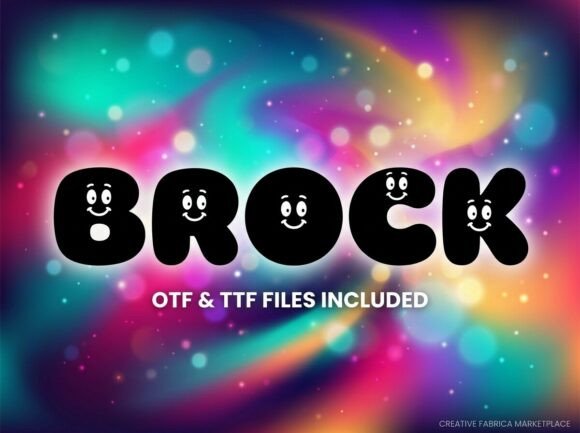
The Brock Font: A Stunning Decorative Display Font to Elevate Your Designs
An Honest Review of Brock Font
- ✨ Unique artistic elements that add a touch of personality to any design
- ✅ Strong visual personality that’s perfect for making a statement
- 💼 Versatile enough for bold headlines, artistic logos, and creative packaging
- 👍 Maintains a professional and polished finish, even in complex designs
⚠️ One thing to note is that the Brock Font is an ALL-CAPS (Uppercase Only) display typeface, which means it doesn’t include lowercase letters. While this might seem limiting, it’s actually a deliberate design choice that makes every letter a work of art. However, it’s essential to consider this when planning your project.
🤔 Another thing to keep in mind is that the font’s uniqueness might not make it suitable for body text or lengthy content. It’s best used for high-impact headlines, logos, and decorative initials.
The Backstory of Brock Font
The Brock Font was designed with the intention of creating a unique, eye-catching display font that would help designers and creatives stand out from the crowd. The designer aimed to craft a font that would be both artistic and professional, making it perfect for bold headlines, logos, and creative packaging.
| Is the Brock Font suitable for body text? | No, the Brock Font is designed for high-impact headlines, logos, and decorative initials. It’s not recommended for body text or lengthy content. |
| Does the Brock Font include lowercase letters? | No, the Brock Font is an ALL-CAPS (Uppercase Only) display typeface and does not include lowercase letters. |